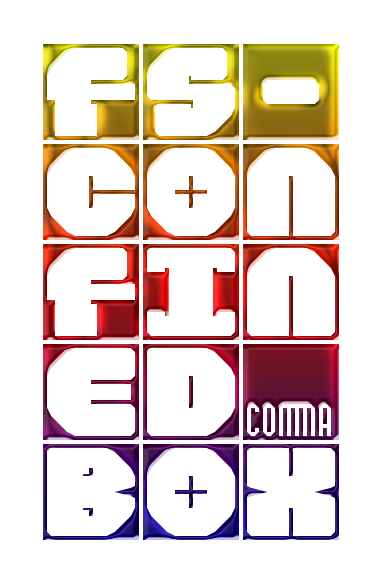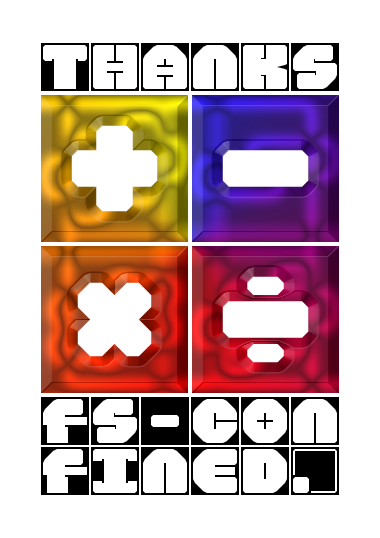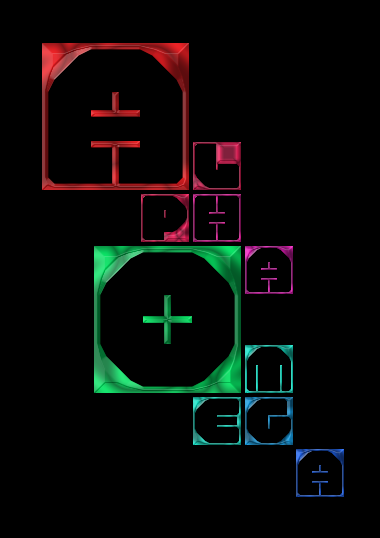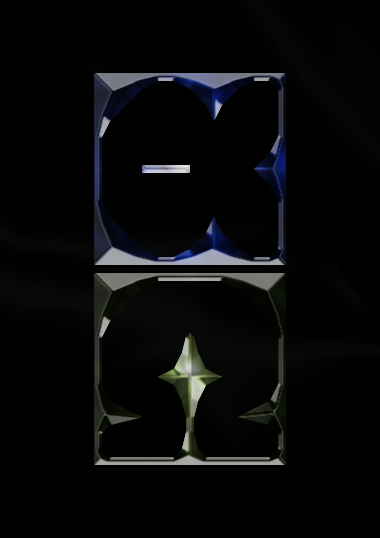
fs Confined
by thalamic
Cloned from fs -ve by thalamic.
I don't even know anymore. I just keep doing stuff.
I like how some punctuation is spelled out with letters. Very original!
Great fun :) with some ingeniuos solutions ... A, B and H are great. 10/10
I like the way to convert some glyphs in their "names" writing into the space of the glyph. My 10 2 U!
THe samples in this page are definitely High end art. Thanks to take FS as art gallery, despite some saying it's not the place for it!
But my really favorite sample with an a this week was not in the Fontout but here, Thalamic did a masterpiece with this alpha omega, i can't help staying in admiration in front of this purity, this excellence, making our little images so weak in comparison.
the m and w look really funny